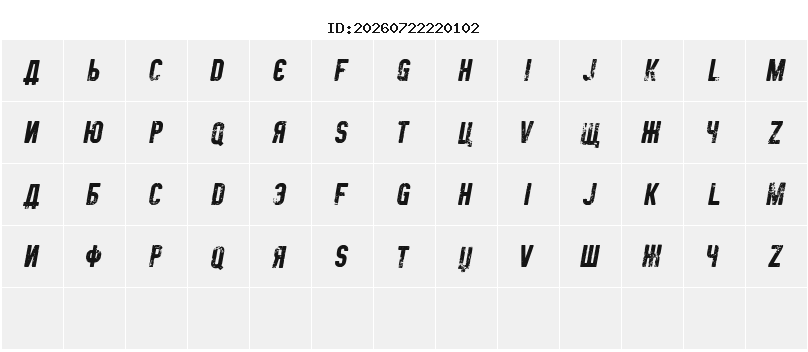
• Font Name: Motherland
• Designer: Fred - 28fonts
• Manufacturer: 28fonts
About Motherland.ttf
Motherland.ttf is a modern, elegant sans-serif font designed for ultimate readability and visual harmony. Perfect for branding, headlines, web design, and print materials.